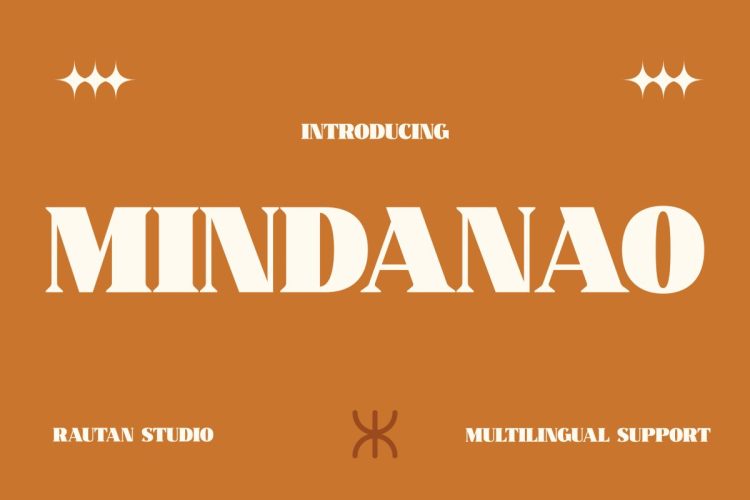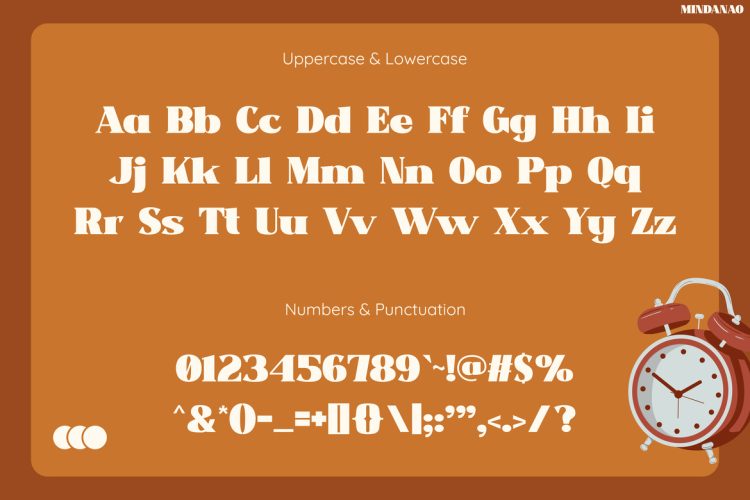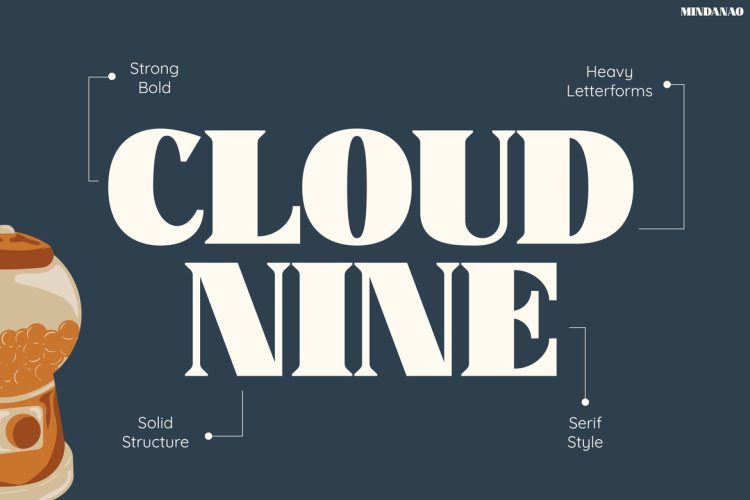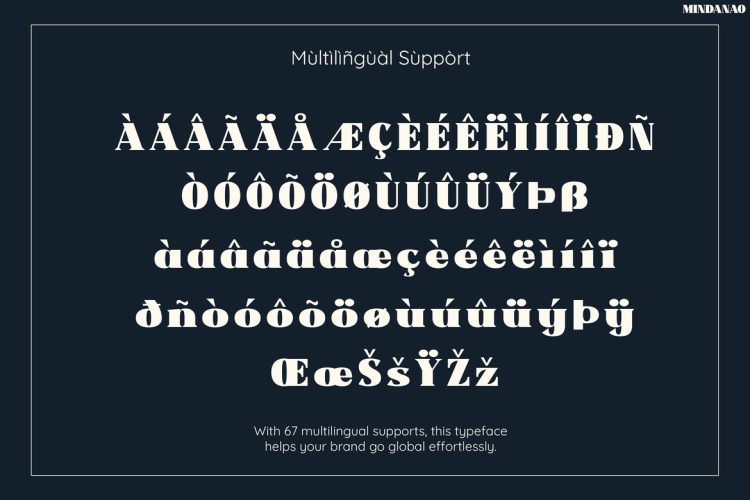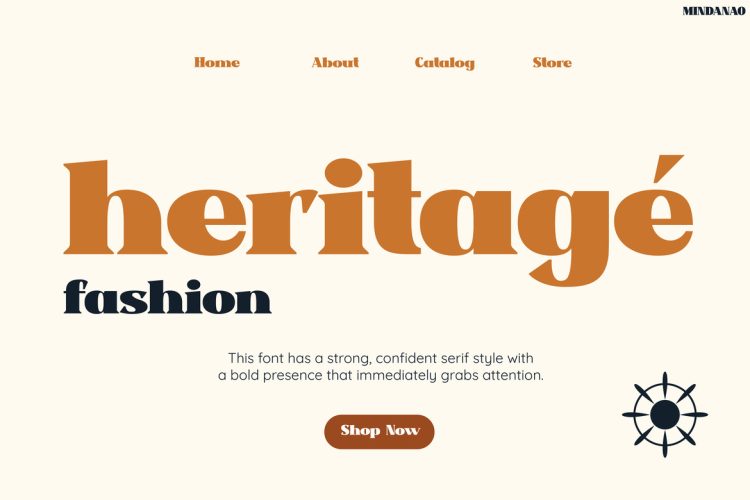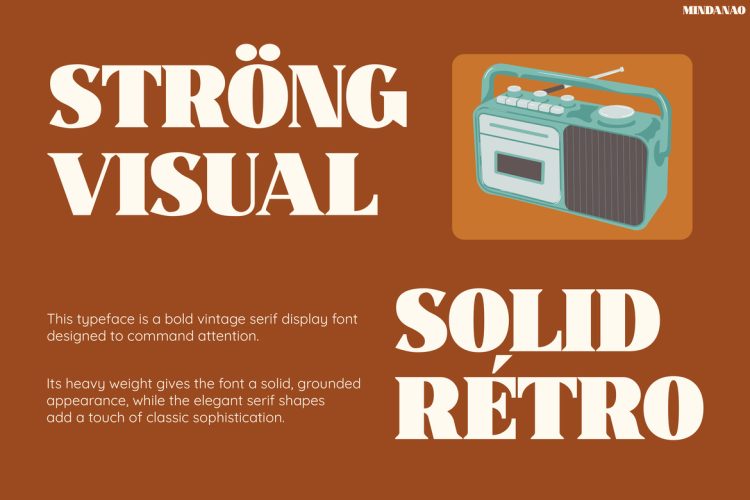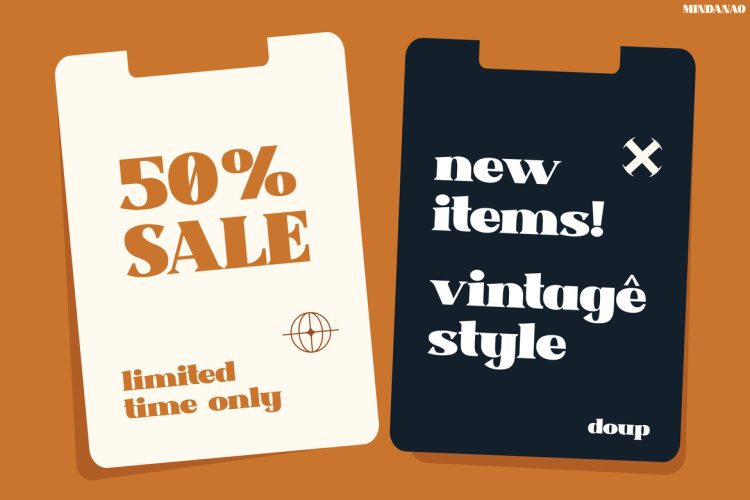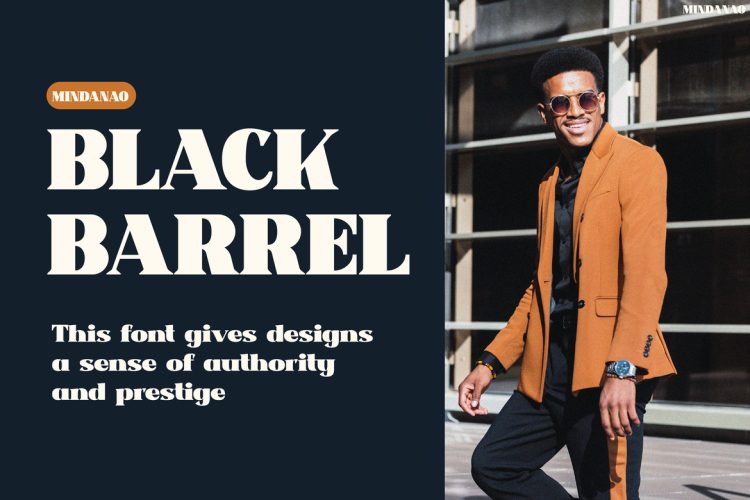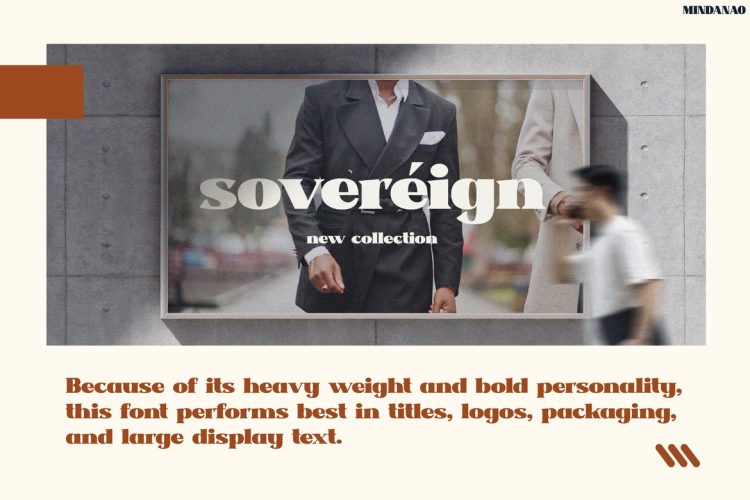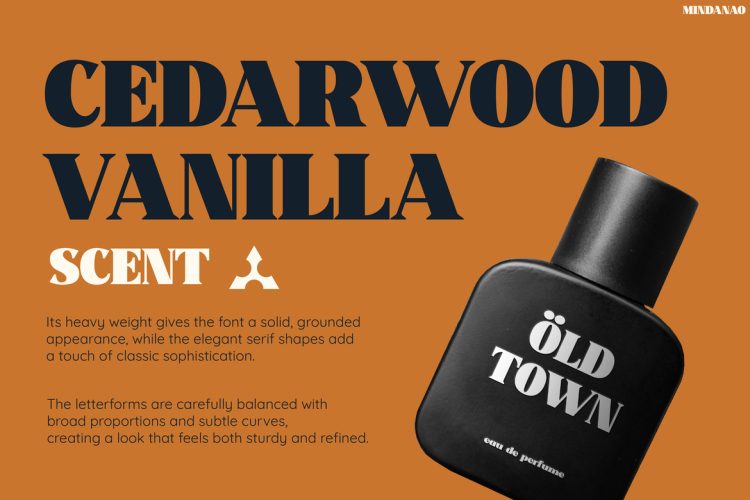
Mindanao โ Bold Heritage Serif with Vintage Strength
Instagram Font Mindanao brings a powerful retro serif style that blends classic heritage aesthetics with bold modern confidence. Its strong letterforms, sharp serifs, and balanced proportions create a commanding visual presence that immediately stands out in headlines and branding. Moreover, the font carries a vintage-inspired personality that feels timeless and authentic. Because of its sturdy structure and confident weight, every word appears solid, expressive, and memorable. At the same time, the typography maintains excellent readability, which makes it practical for both digital and print designs. In addition, the elegant contrast and refined shapes add depth and sophistication to any layout. With support for 67 languages, Mindanao allows designers and brands to communicate globally while preserving a distinctive and classic typographic identity.
Mindanao is a bold serif display font designed to deliver a strong visual impact. First of all, its heavy strokes and classic serif details create a confident and structured typographic style. Furthermore, the font combines retro charm with modern clarity, which allows it to adapt easily to many design contexts. Because of this versatility, designers can use Mindanao for headlines, branding, editorial layouts, and promotional graphics. In addition, its balanced letterforms help maintain readability even at larger sizes. As a result, designs look powerful, stylish, and professional at the same time. Whether used in vintage-inspired branding or contemporary marketing visuals, Mindanao consistently adds character and strength to the composition.
Instagram Font Mindanao Perfect For
Mindanao works perfectly for designers, fashion brands, and creative studios that want a bold and timeless visual identity. For example, it fits perfectly in vintage branding, editorial titles, fashion campaigns, and product packaging. Moreover, it looks excellent on posters, logos, advertising materials, and social media graphics. Likewise, lifestyle brands, boutique labels, and heritage-themed projects benefit greatly from its strong personality. Because of its bold presence, the font helps brands communicate confidence, style, and authenticity.
Instagram Font Mindanao transforms ordinary text into bold statements full of character. Therefore, if you want typography that feels strong, classic, and visually striking, Mindanao is the perfect addition to your creative toolkit.